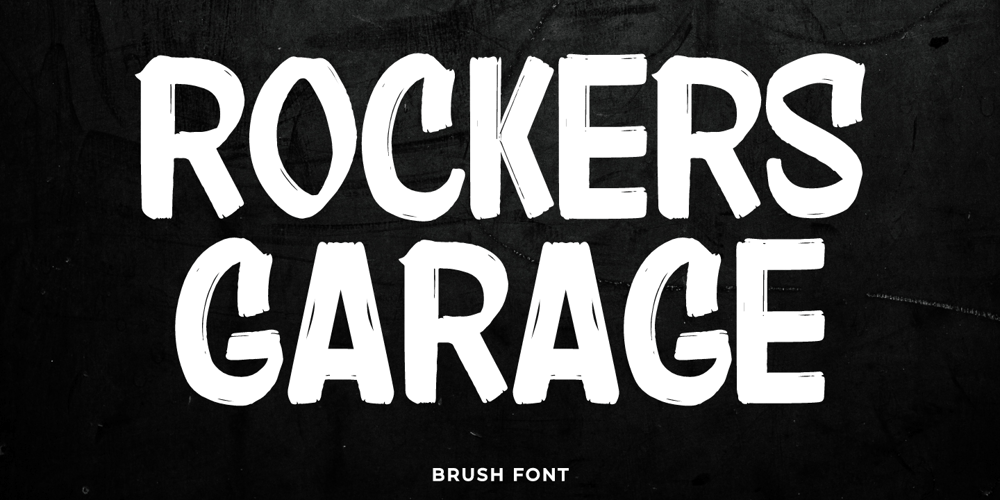
Rockers Garage Font Family was designed by Muhammad Fikry and published by Fikryal. Rockers Garage contains 1 styles and family package options. Rockers Garage – Font is a display brush font.It’s perfect for logo, branding, title, social media posts, advertisements, product packaging, product designs, label, photography, watermark, special event, magazine, web designs, etc.If you have any questions please don’t hesitate to contact me.follow my Instagram: fkryallThank you 🙂